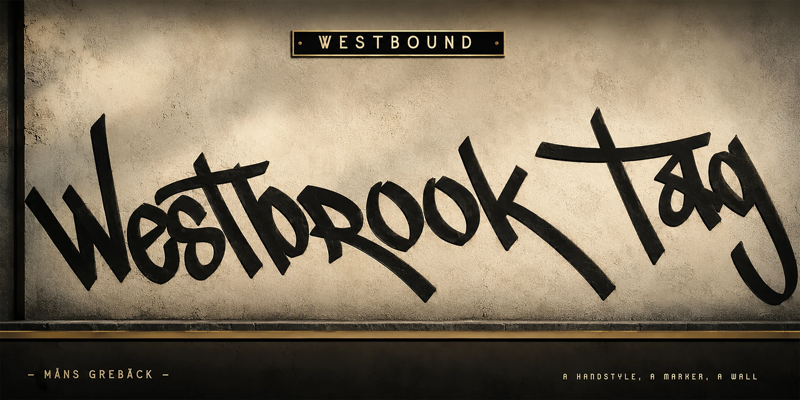
Westbrook Tag
NOTE: This font is for PERSONAL USE ONLY! To purchase a commercial license, visit: https://www.mansgreback.com/product/westbrook-tag Westbrook Tag is a fast marker handstyle, drawn the way a name is signed across a wall in one pass. Stroke width stays roughly even but the letters pick up sudden slashes and drag-out tails that cross the next form. There is a real lean to the alphabet and a deliberate looseness — letters are not lined up to a baseline so much as ridden along it. The lowercase carries the most movement; the caps stretch into long horizontal tags with crossbars that overshoot. Belongs on the steel shutter of a closed shopfront after midnight, or scrawled in black on a courier sticker before it gets slapped on a lamppost. For questions, please visit https://mansgreback.com/faq